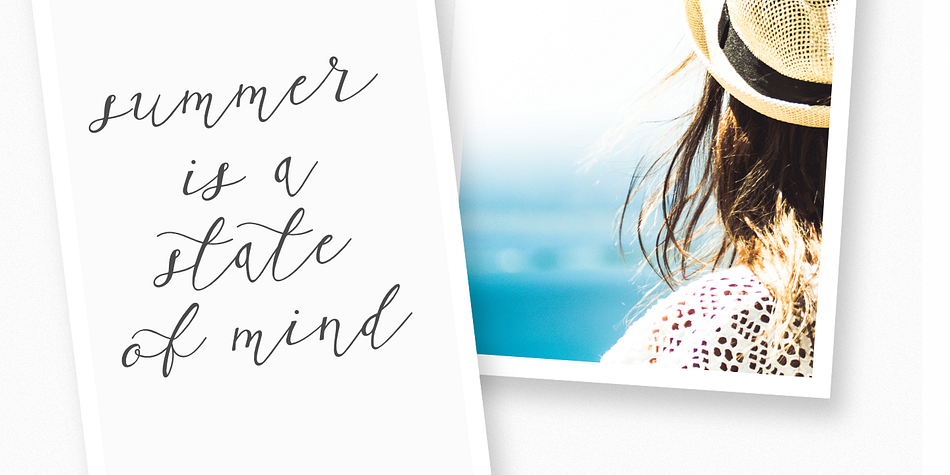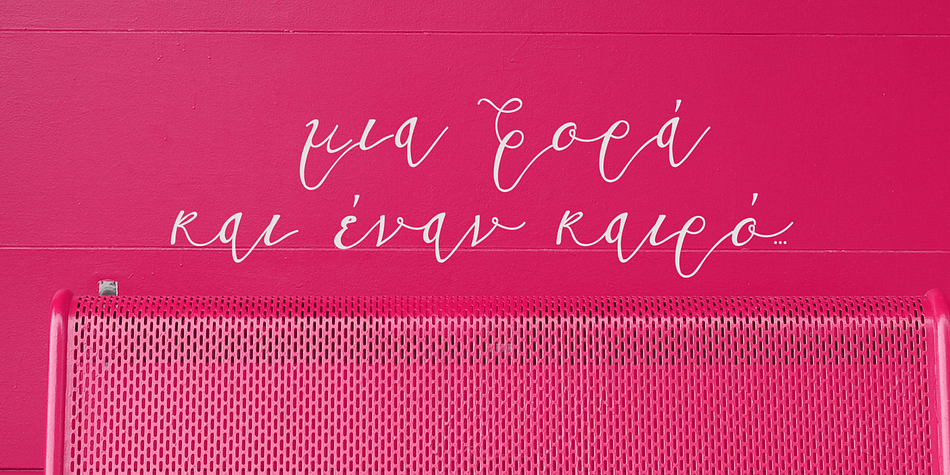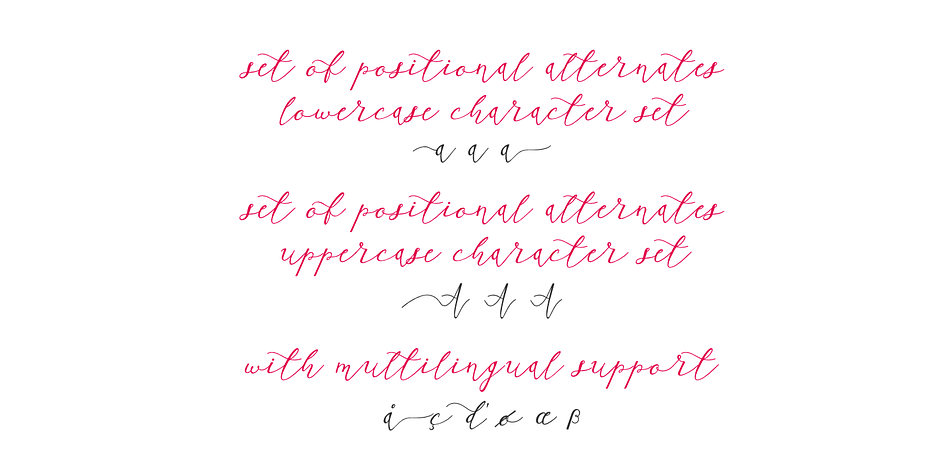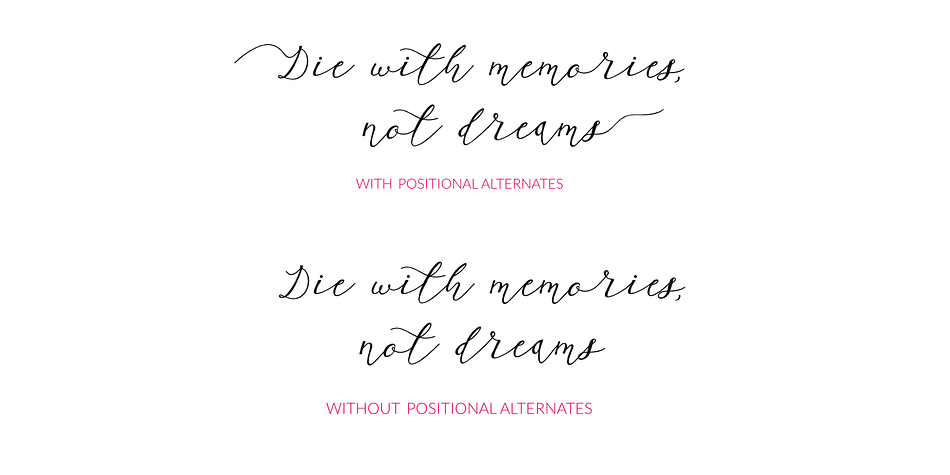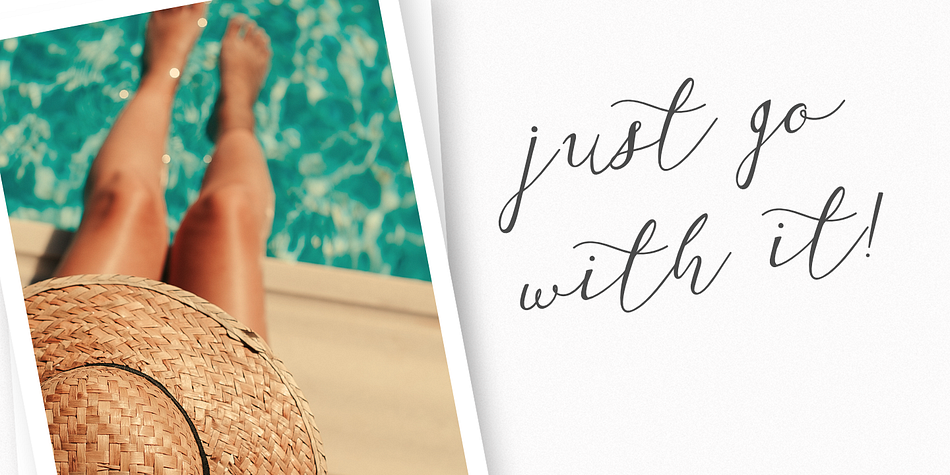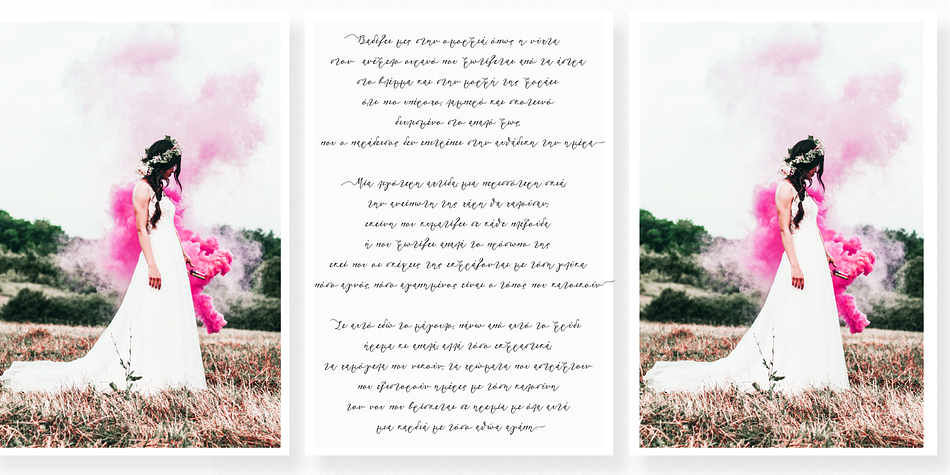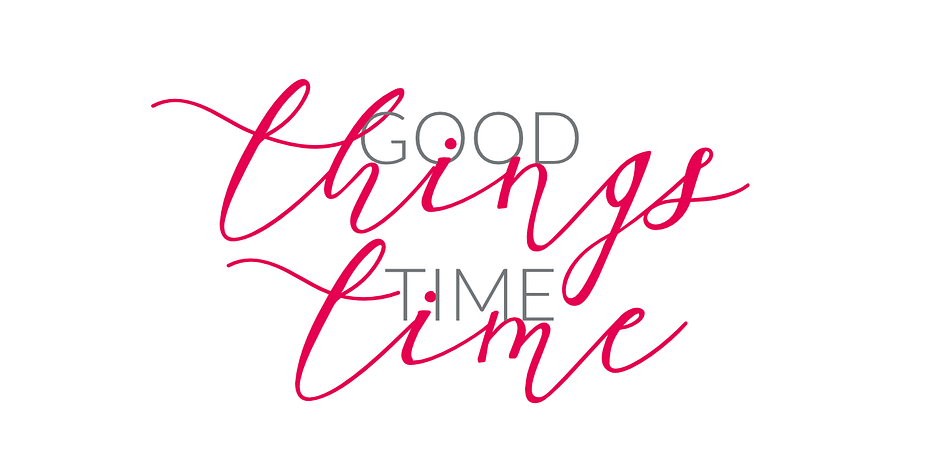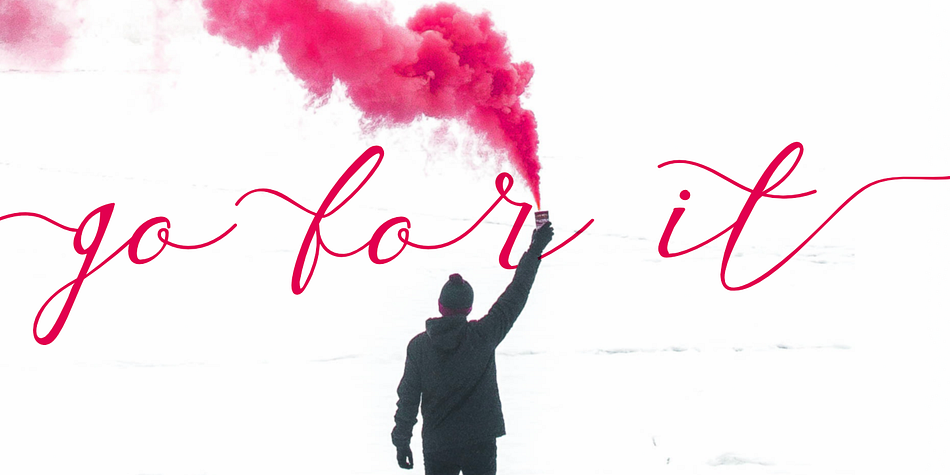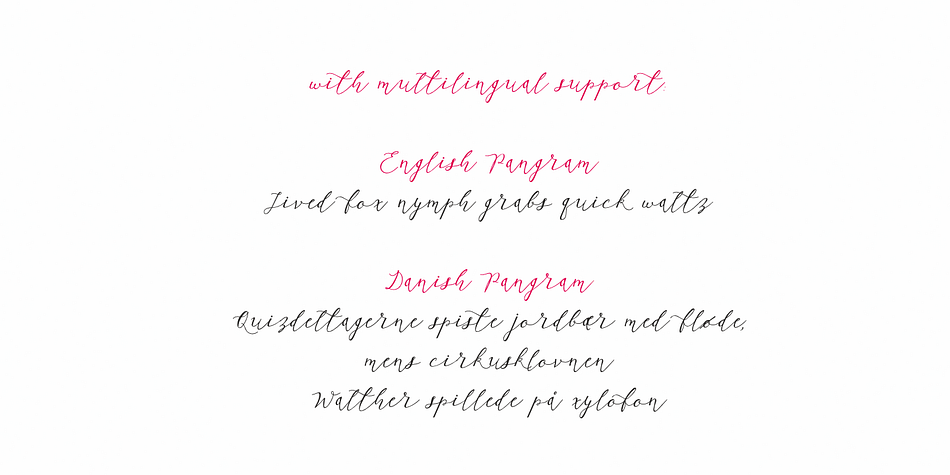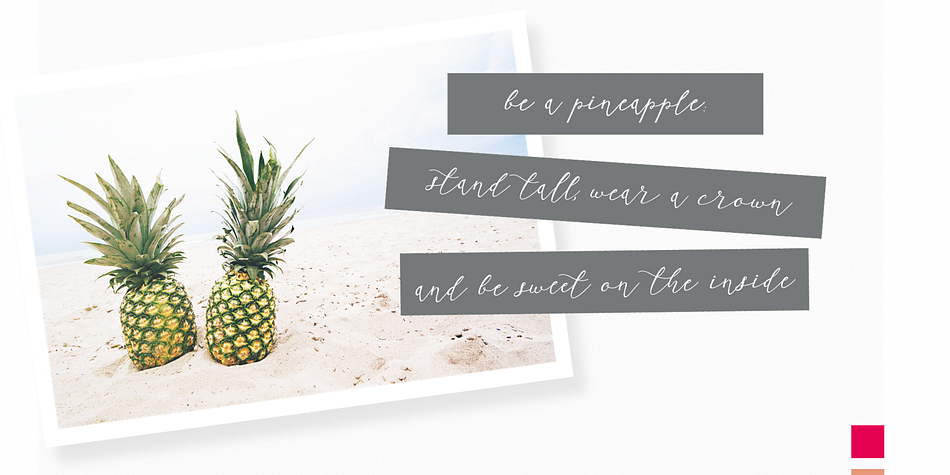
Marilia Pro is a modern calligraphy and script font published by Konstantina Louka.
Let me introduce you to my latest creation, the Script Font Calligraphy Marilia Font!
Script Font Calligraphy Marilia, is an elegant modern calligraphy typeface, which supports Extended Latin and Greek character set. This font does not only contain a complete set of lower and uppercase letters, punctuation, numbers, but also a set of ligatures and two sets of alternates. Equally important is the fact that the font has diacritics for multilingual support. Of course, with this typeface, you have access to a complete Greek set of characters, with diacritics and Greek ligatures. Script Font Calligraphy Marilia is a high-quality calligraphy font that can infuse any project with glamorous vibes.
Script Font Calligraphy Marilia is the perfect wedding font if you want to achieve a fairy-tale style on your wedding invitation. For a whimsical style you can pair the font with a strong color palette and metallic papers.
Of course, this modern script font is perfect for your graphic design needs like social media quotes, blog headers, posters, stationery, and why not branding, packaging, and logotypes. In addition, this calligraphy font is ideal for the fashion and apparel industry, if you want to achieve a glamorous chic, yet modern style.
In conclusion Script Font Calligraphy Marilia is a glamorous, modern calligraphy typeface, with:
Extended Latin character set,
Greek character set,
punctuation marks,
ligatures in both Latin & Greek
alternate glyphs
diacritics and
numbers.